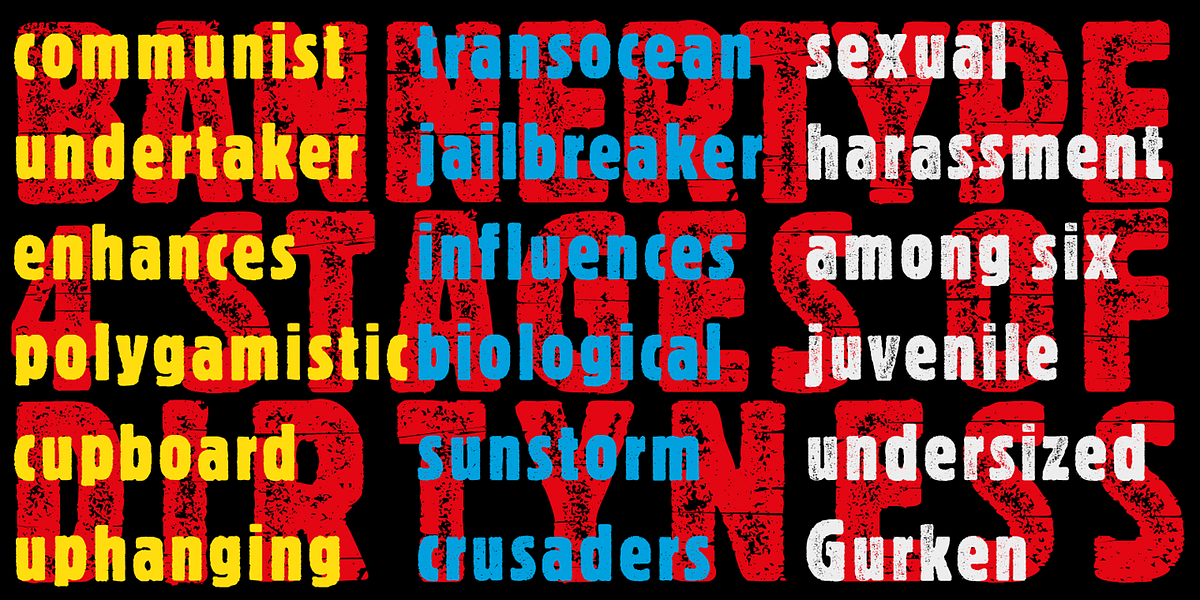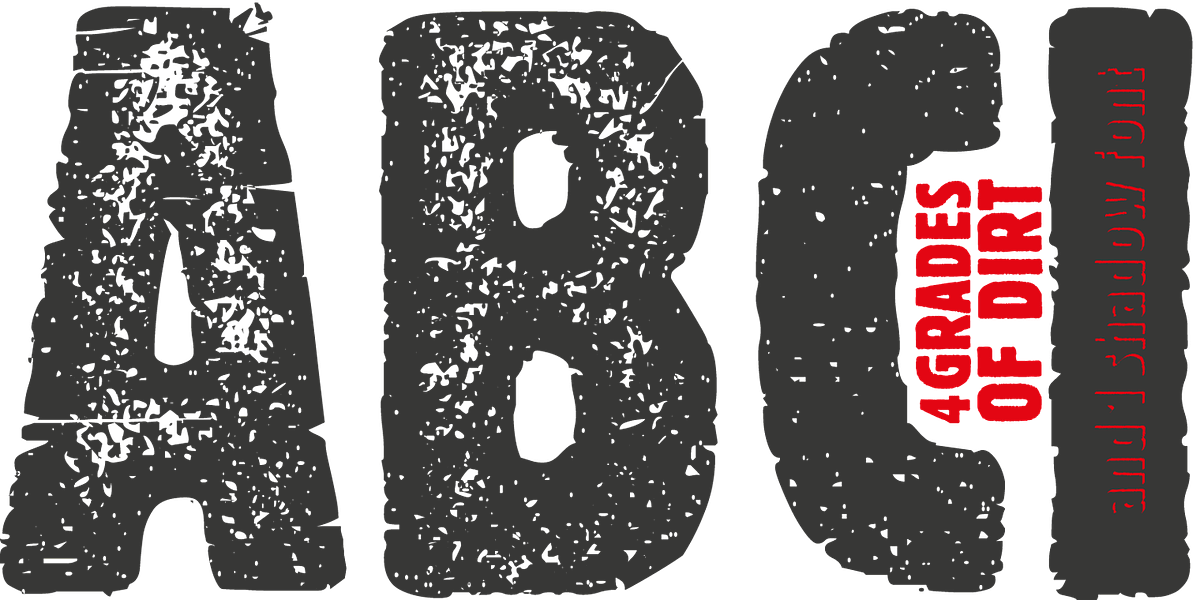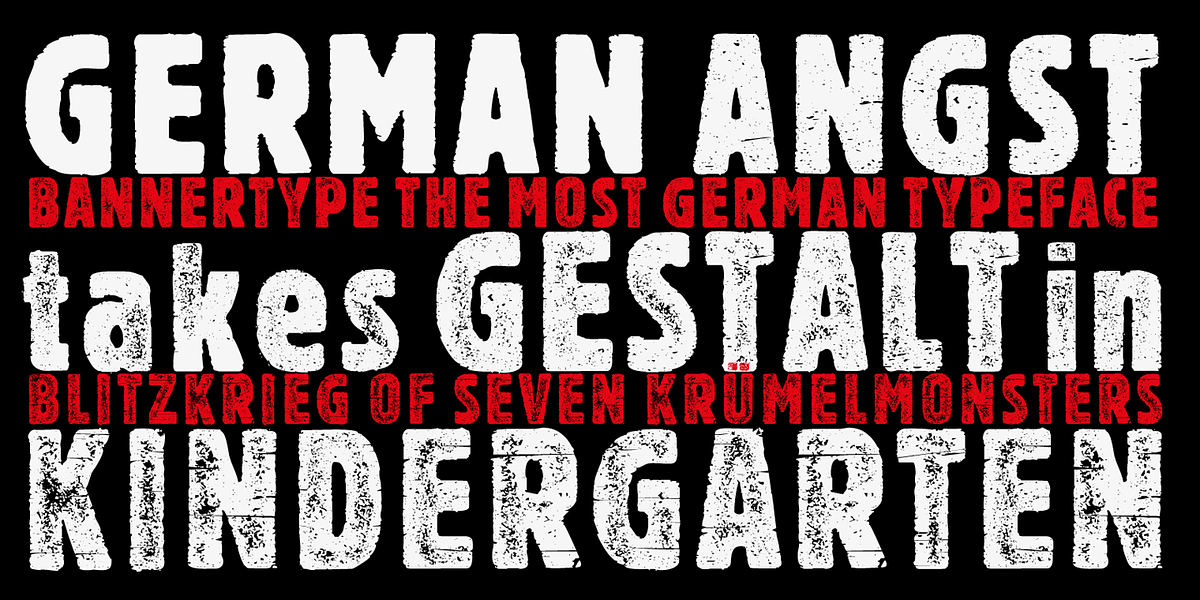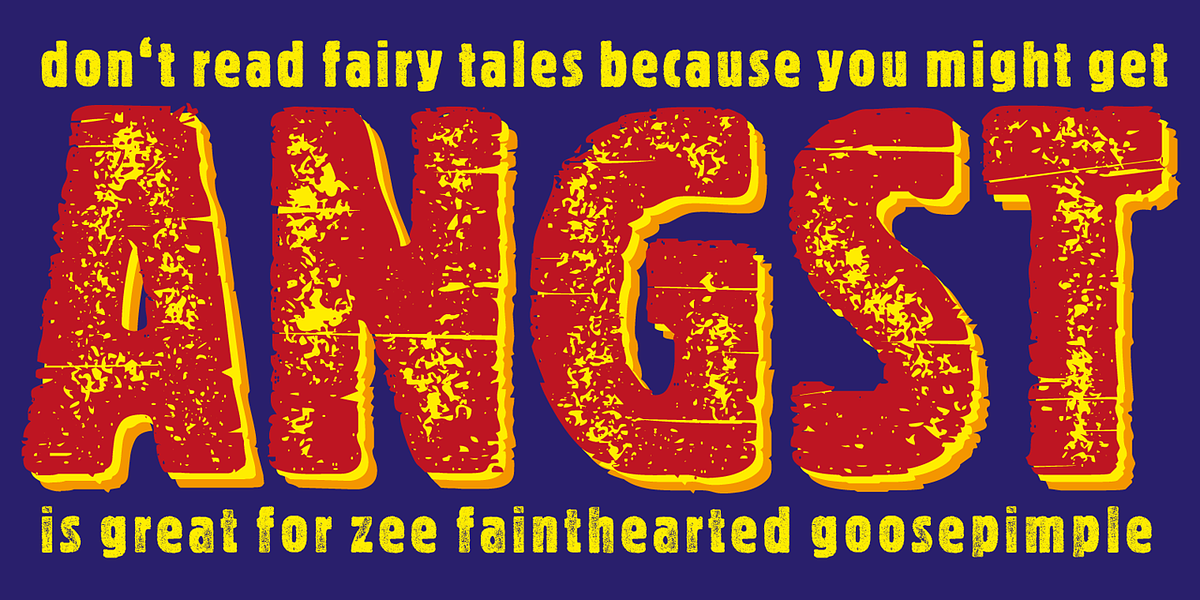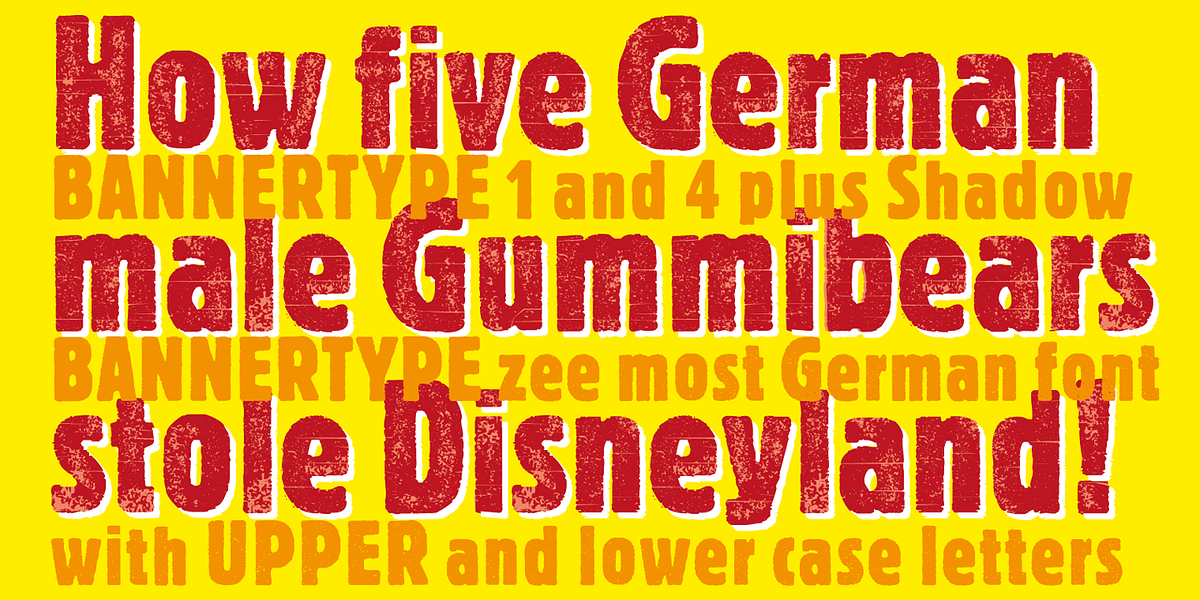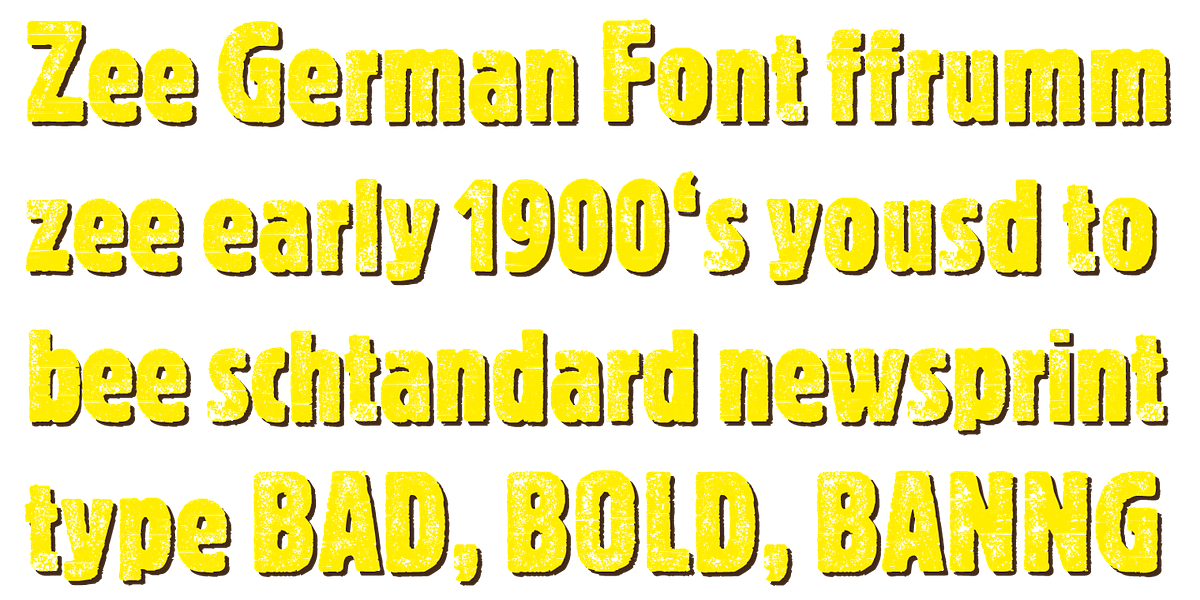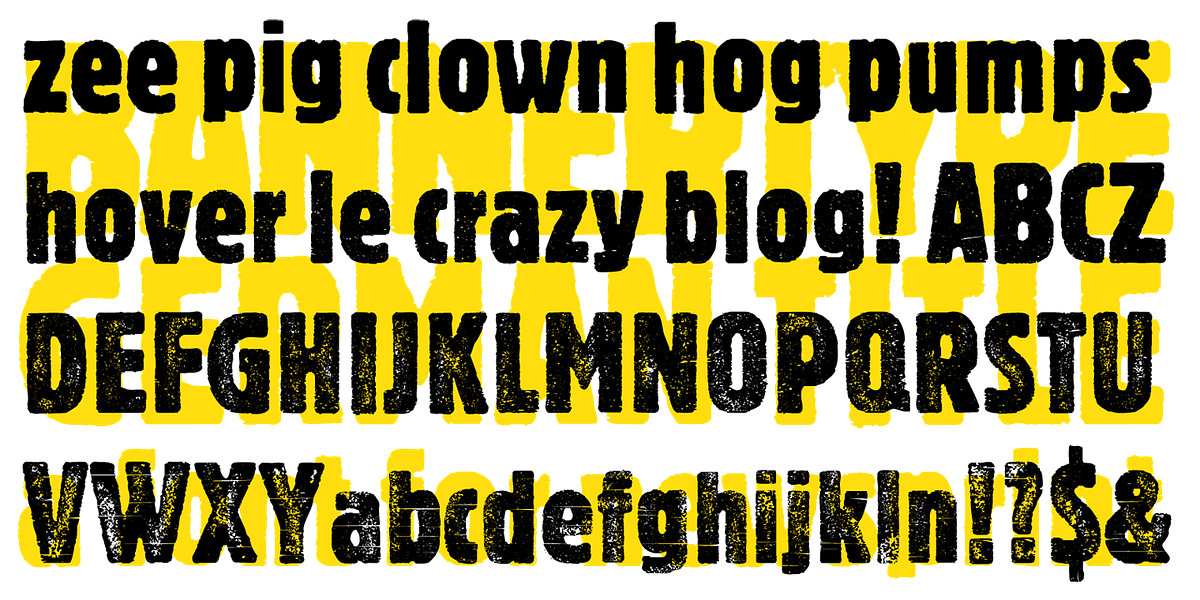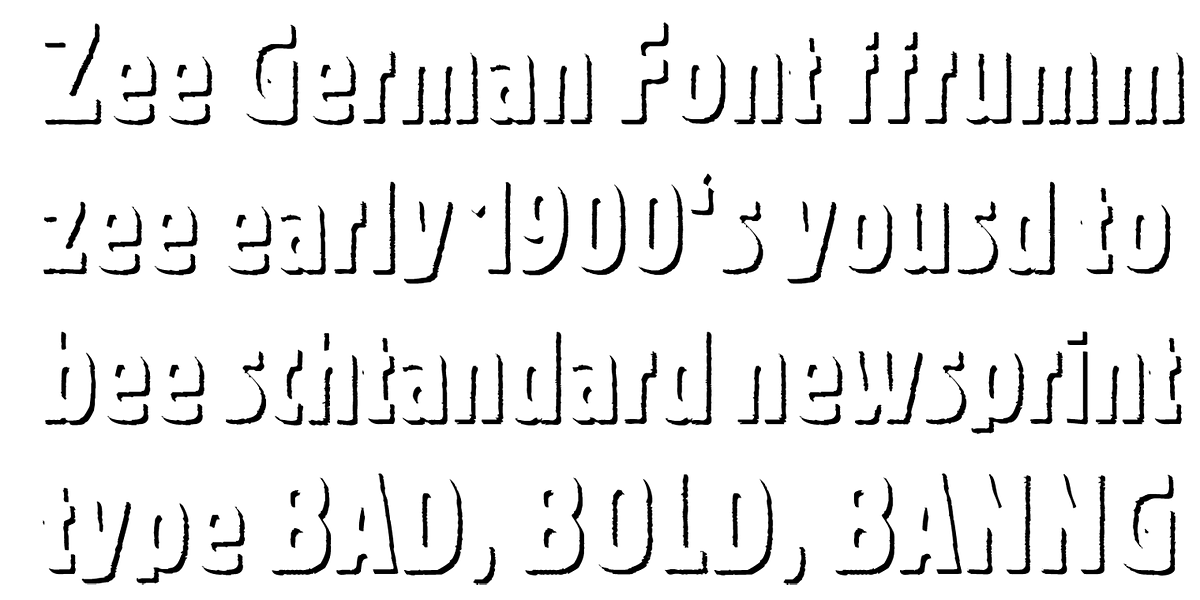
Bannertype
This grunge display font is designed to evoke the feel of early 20th-century German advertising. It features a rough, distressed aesthetic with elements like embossing and borders.